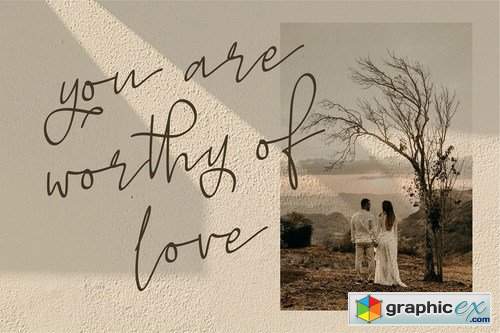
Tristy A Beauty Script Font
Tristy | A Beauty Script Font with a calligraphy style, So beautiful on invitation like greeting cards, branding materials, business cards, quotes, posters, and more!